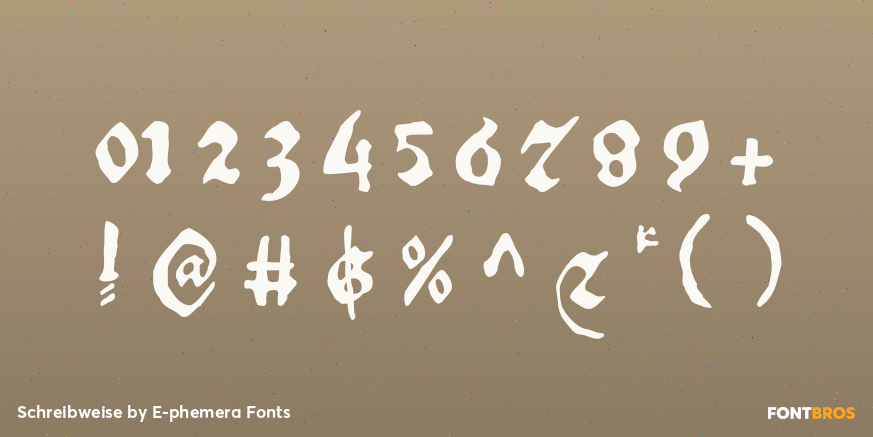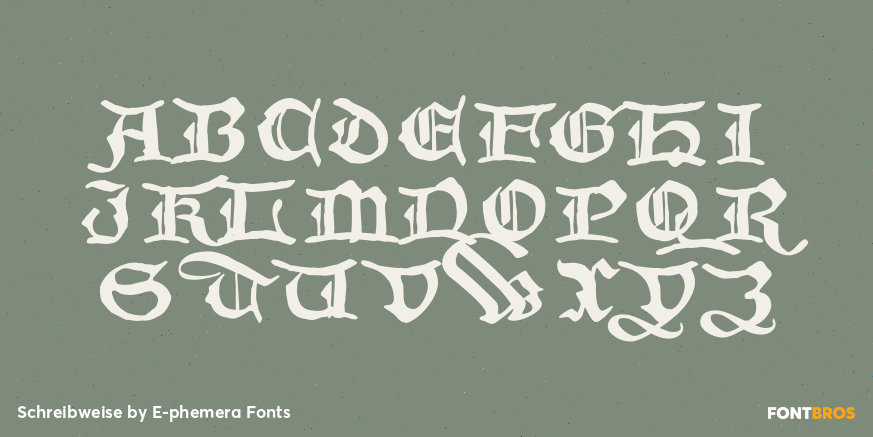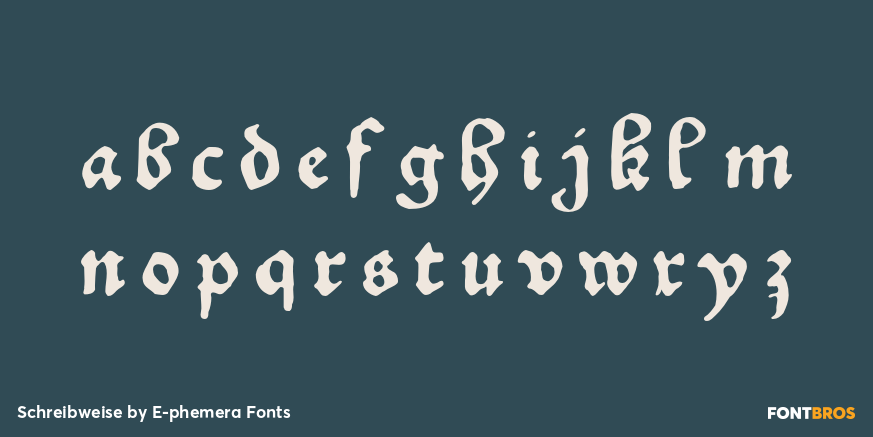
Schreibweise
Font Family by E-phemera Fonts
Schreibweise is a pirate-flavored font inspired by a hand-lettered manuscript dating from 1492.
The digital font features numerous traditional blackletter and discretionary ligatures and contextual alternates to help create the feel of genuine hand lettering, and features archaic glyphs including the long s and rotunda r for vintage typography.
The font also includes a complete set of small caps.